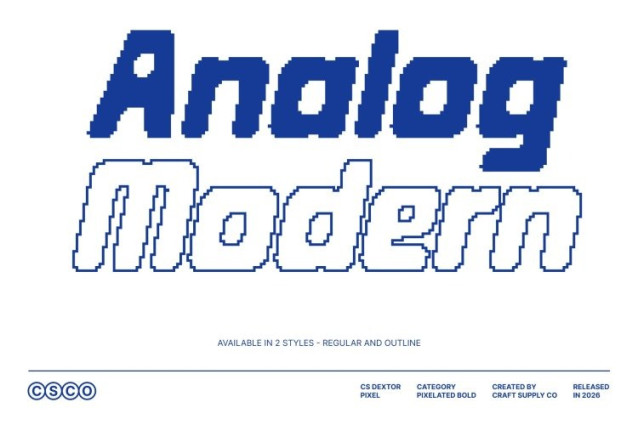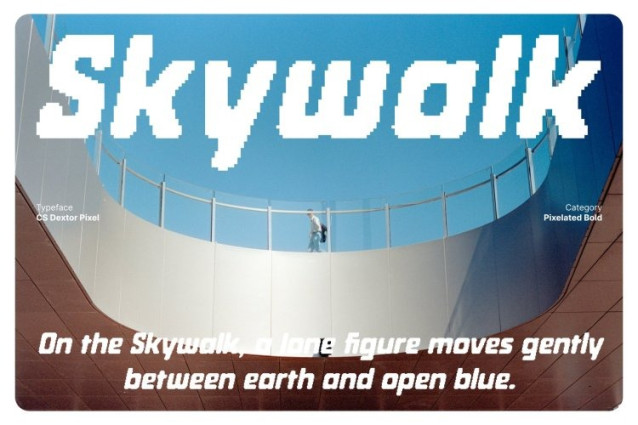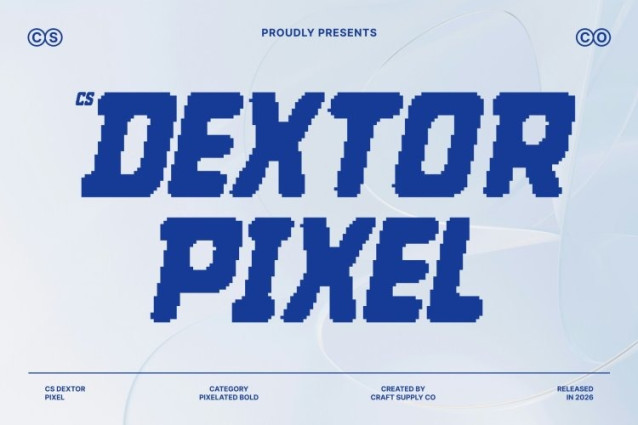
CS Dextor Pixel Font
CS Dextor Pixel Font This is a bold sans serif display font built with confident, rounded pixel forms that deliver instant visual strength. Its solid construction creates a powerful and approachable presence, while the pixel structure adds a nostalgic digital character inspired by classic screens and early technology.
Rounded Pixel Shapes for Friendly Modern Energy
The rounded edges soften the bold weight, giving the font a friendly yet assertive personality. Combined with its pixel-based design, this balance creates a modern look that feels playful, accessible, and visually engaging. It’s perfect for designs that want to feel bold without being aggressive.
Eye-Catching Display for Digital and Retro Screens
Designed for maximum visibility, this font performs beautifully on digital displays, posters, and retro-inspired visuals. Its thick strokes and clean pixel geometry ensure excellent readability, even at large sizes, making it ideal for headlines, titles, and screen-based graphics.
Versatile Pixel Font for Modern and Old-Tech Design
From contemporary branding and social media graphics to arcade-style visuals and retro tech themes, this font adapts effortlessly. Its blend of bold modern design and nostalgic pixel charm makes it a standout choice for projects that demand impact, clarity, and unmistakable digital character.